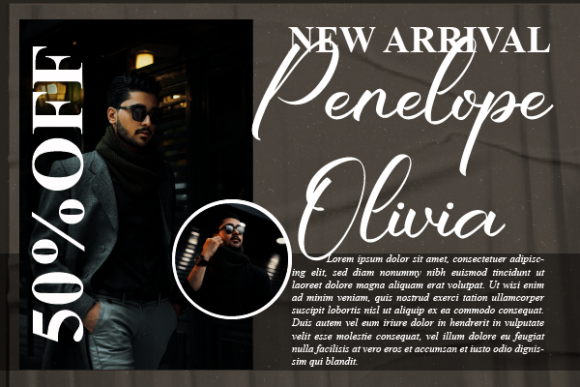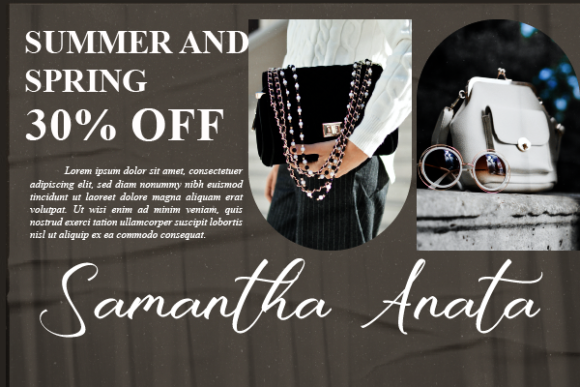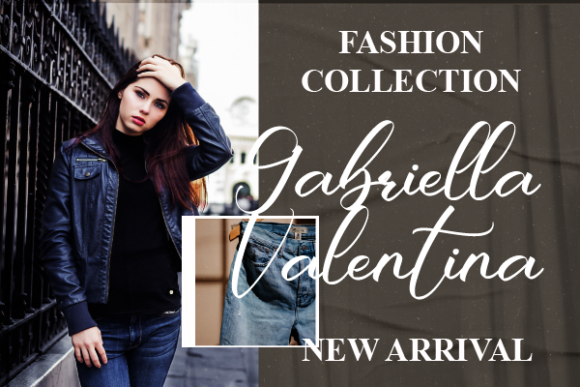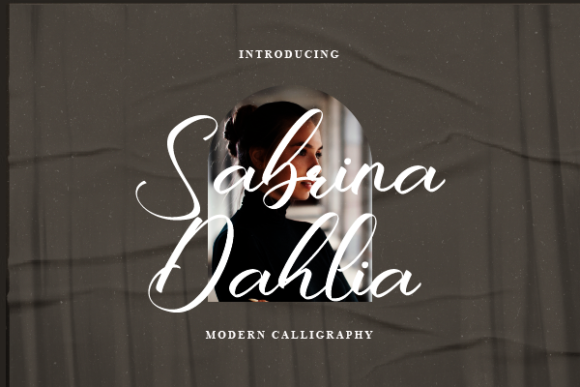
Introduction to Sabrina Dahlia Font
Sabrina Dahlia is a superb handwritten font that will make your work stand out through its elegant and curvy lines.
It is perfect for product packaging, branding project, magazine covers, social media, wedding, or just used to express words above the background .
Sabrina Dahlia Font offers exceptional quality and versatility, making it a valuable addition to your design toolkit. Whether you’re creating for personal projects or commercial use, Sabrina Dahlia Font delivers professional results.